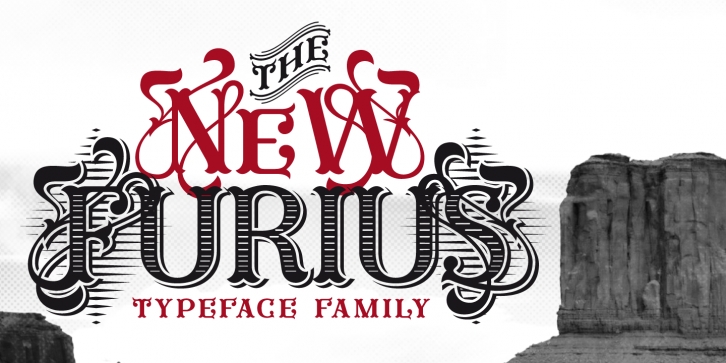
Furius is a trendy and unique font with an authentic style. It was designed by Typogama and it's a great choice for creative people who need such a font. It was released on January 10, 2017 and the file size is 13.57 MB. Furius will add an organic vibe to any design idea!